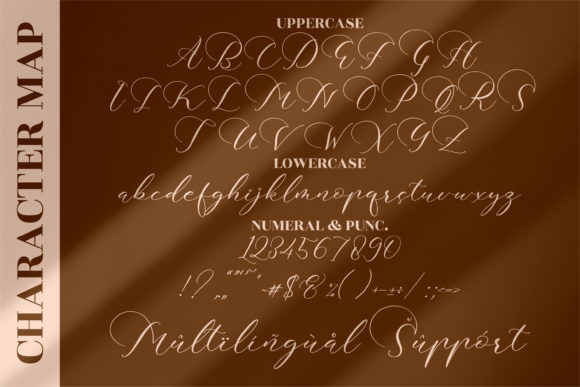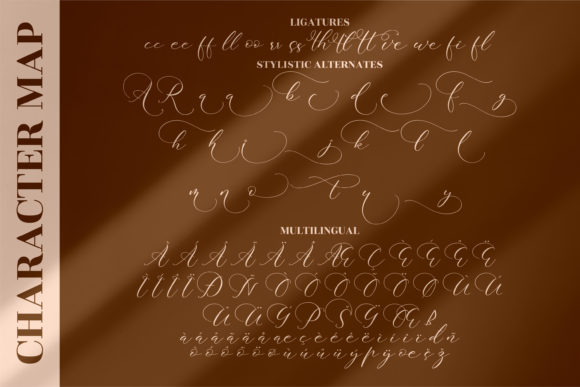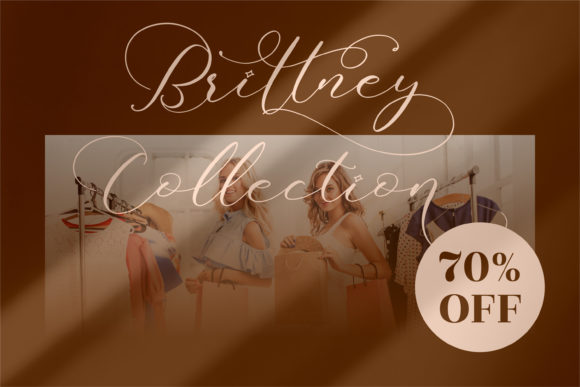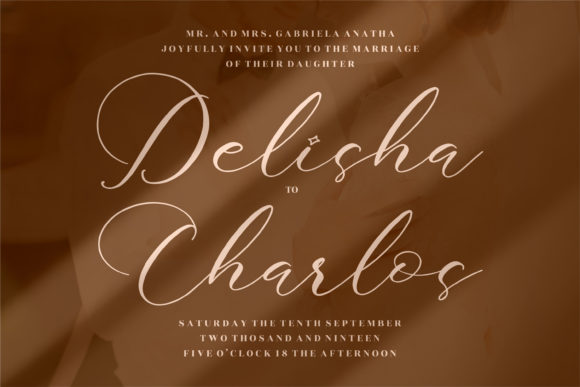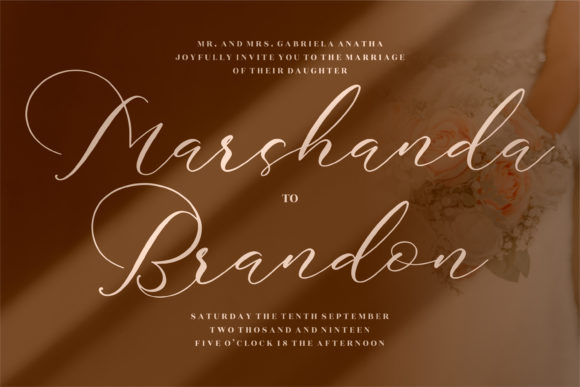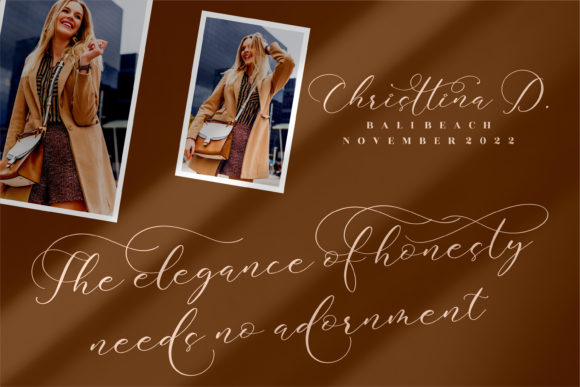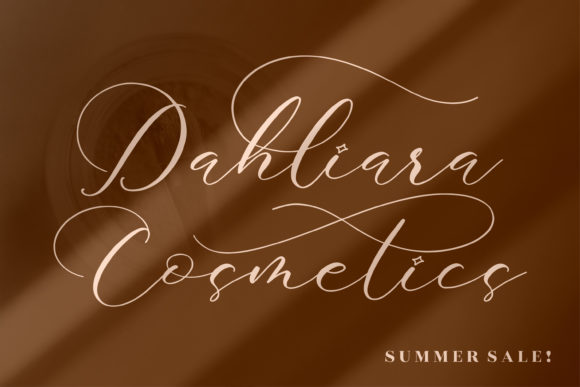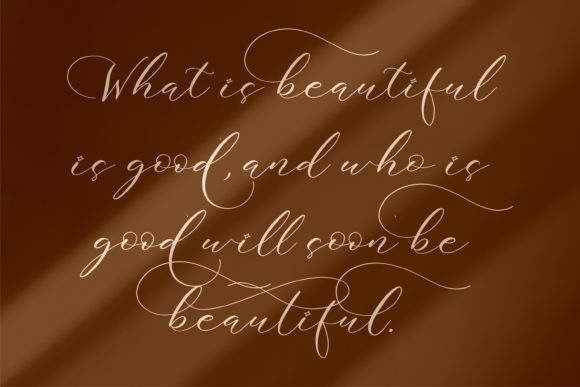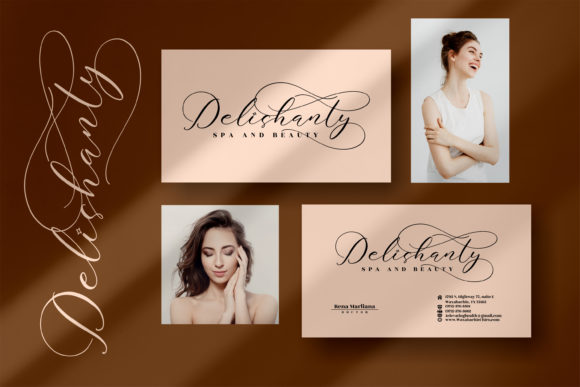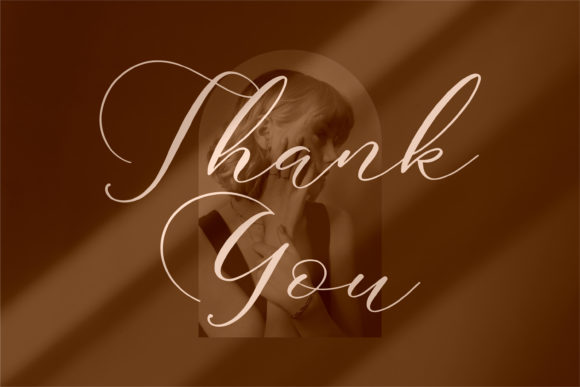
Bettilda Ristta Font
Bettilda Ristta is a lovely and delicate script font that exudes elegance and class. This font was particularly crafted for those who need a beautiful and refreshing look to their designs.